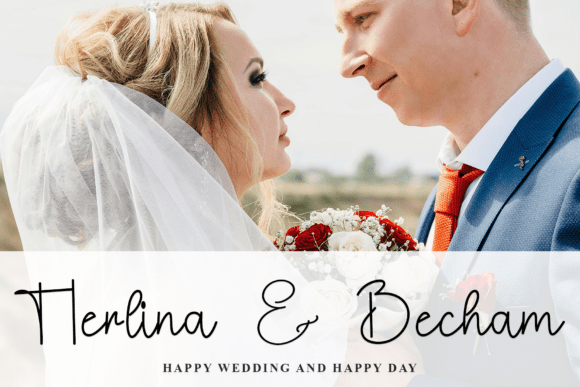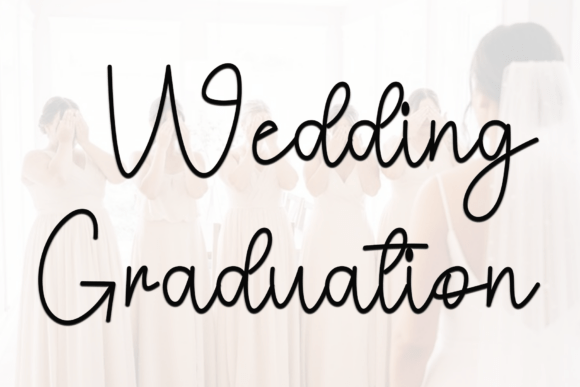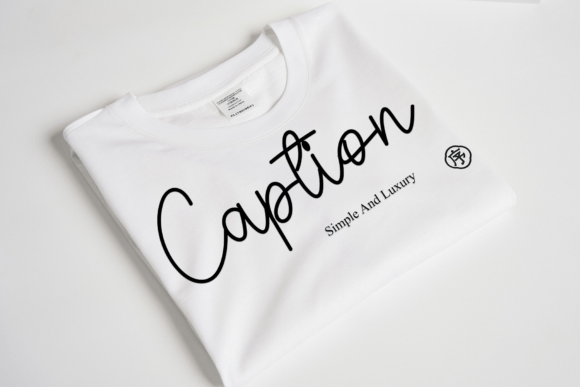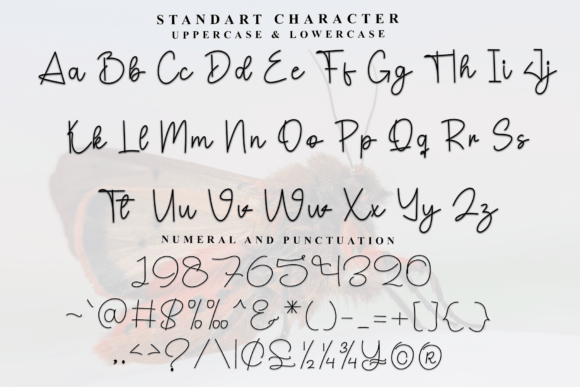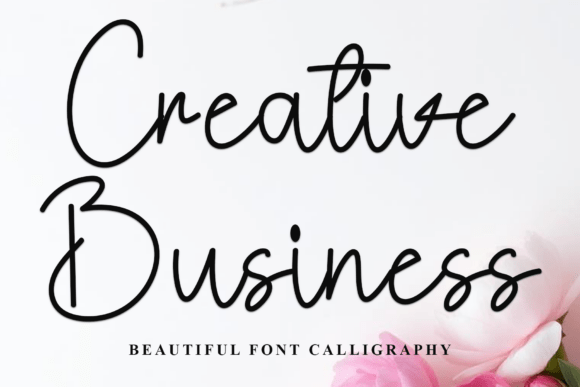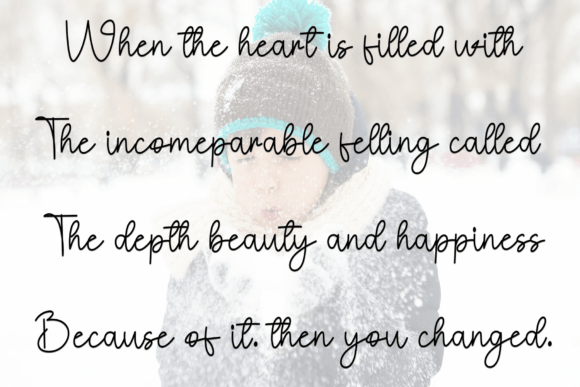
Introduction to House Awesome Font
As the holiday season approaches, designers and crafters alike start brainstorming ideas for their festive projects. Whether it’s a custom greeting card, a set of gift tags, or a holiday-themed website, the right typography can make all the difference. That’s where the House Awesome Font comes in – a delightful and merry typeface that captures the essence of the holiday spirit.
Imagine pouring your heart into a creative project, only to be let down by a font that’s dull and uninspiring. But with the House Awesome Font, you can add a touch of magic to your designs. Its decorative elements and whimsical flair make it the perfect choice for high-quality projects that require a little extra something special.
As a valuable design resource, the House Awesome Font offers a free download with transparent background, making it easy to use in a variety of creative applications. Whether you’re a seasoned designer or just starting out, this font is sure to bring a smile to your face and a touch of holiday cheer to your projects.
- High-quality design: House Awesome Font is a premium font designed for creative projects, offering a unique and stylish look.
- Unique characteristics: House Awesome Font features a distinctive and modern design, with a mix of bold and elegant lines.
- Perfect for design projects: This font is ideal for use in logos, branding, and other creative projects where a high-quality and unique font is required.
I recently had the opportunity to work with the House Awesome Font, and I must say, it’s been a game-changer for my creative projects. As a designer, I’m always on the lookout for high-quality design resources that can elevate my work and make it stand out.
The House Awesome Font is a great addition to my design arsenal. With its free download and transparent background, it’s perfect for use in a variety of applications, from logos and branding to digital products and marketing materials.
- ✨ Unique and modern design style that’s perfect for creative projects
- ✨ High-quality typography that’s crisp and clear
- ⚠️ Limited character set, which may be a drawback for designers who need to use a wide range of characters
- ⚠️ Not ideal for use in small font sizes, as it may become pixelated
Overall, I’m really impressed with the House Awesome Font. While it may have some limitations, its unique design style and high-quality typography make it a valuable addition to any designer’s toolkit.
The House Awesome Font is a high-quality, free download that can elevate any creative project. With a transparent background, this versatile font is perfect for designers looking for a unique design resource.
To get the most out of the House Awesome Font, experiment with different font sizes, colors, and combinations. Use the font in conjunction with other design elements to create a unique visual effect.
The House Awesome Font is perfect for designers working on creative projects, such as logos, brochures, and social media graphics. Its high-quality design and transparent background make it an ideal design resource for any project.
Yes, the House Awesome Font is designed to be scalable and can be used in a wide range of font sizes, from small to large. However, please note that the font’s legibility may vary depending on the size and context in which it’s used. It’s always a good idea to test the font in your specific design project to ensure it meets your requirements.